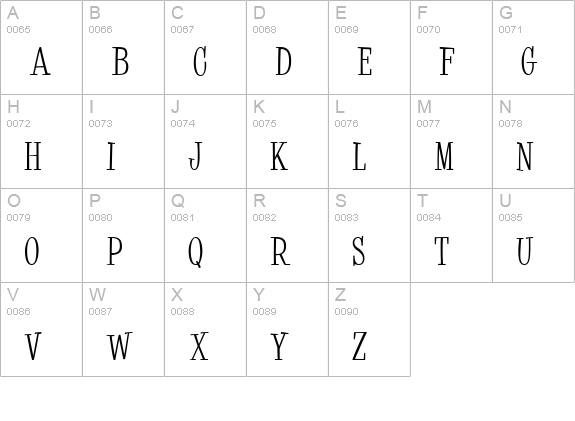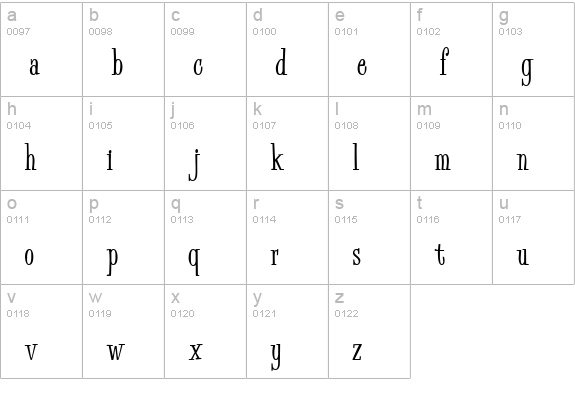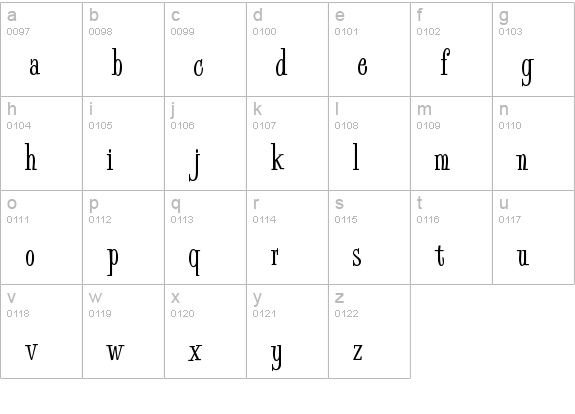
Bud Easy Medium is a balanced, medium-weight variant in the Bud typeface family \xE2\x80\x94 well suited to sub-headlines, navigation, and balanced editorial work.
Bud Easy Medium font is a versatile and modern typeface that strikes the perfect balance between simplicity and sophistication. Its clean lines and rounded edges give it a friendly and approachable look, making it ideal for a wide range of design projects. Whether you're creating a sleek logo, eye-catching posters, or stylish branding materials, Bud Easy Medium font is sure to make your text pop. The best part? Bud Easy Medium font is available for free download at FontsMarket.com. With just a few clicks, you can add this stylish and professional font to your collection without breaking the bank. Don't miss out on this fantastic opportunity to enhance your designs with the sleek and modern Bud Easy Medium font. Download it today and start creating stunning visuals that stand out from the crowd.